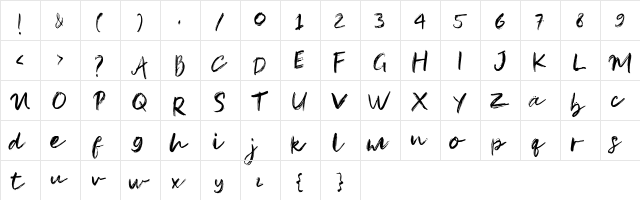
Pandu Regular
Design Context for Pandu Typeface
Pandu is a composed and adaptable typeface that performs quietly and consistently across a wide range of design contexts.
Pro Tip: Use Pandu in both headline and body roles to test its range before committing to a single application.